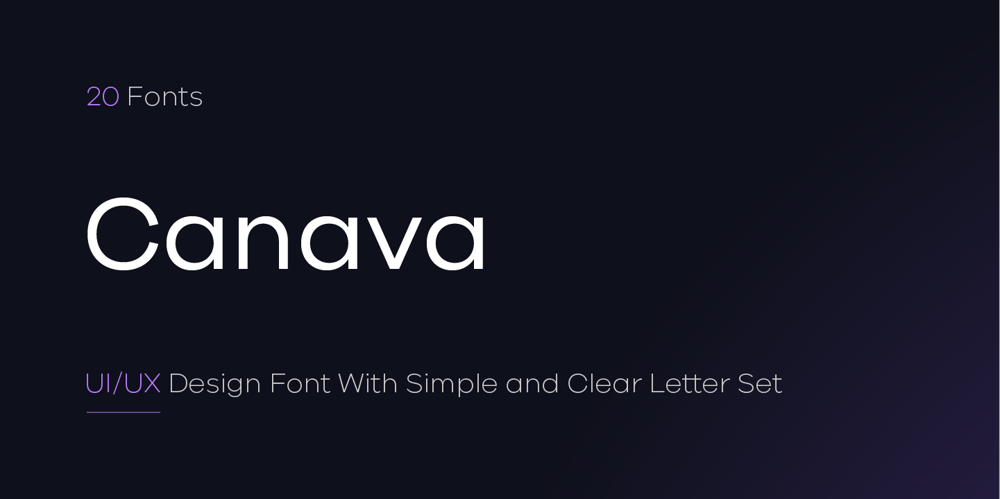
Canava Grotesk Font Family was designed by Serdar Öztürk and published by Serdar Ozturk. Canava Grotesk contains 20 styles and family package options. The Canava Grotesk represents simplicity. Its clean and plain appearance ensures high readability. This font increases compatibility for your UI/UX designs and makes your designs more understandable. It offers you support in many languages.Canava’s fluid functionality is achieved through multiple OpenType features such as case sensitive forms, contextual and stylistic alternatives. The standard set of numbers includes tabular figures and symbols, top and bottom numbers, numerators and denominators, as well as fractions.Thanks to its corporate structure, Canava can be shaped and used in accordance with many design trends.